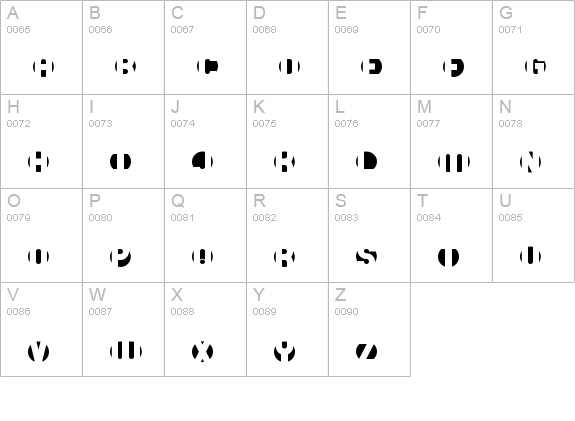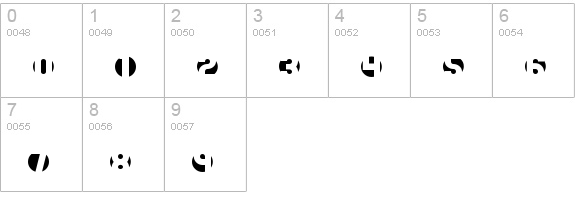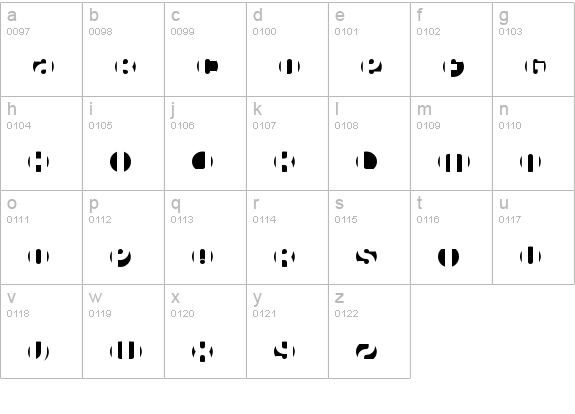
DB Layer 4 BRK Font Details
DB Layer 4 BRK font is a unique and eye-catching display font that adds a touch of modernity to any design project. With its bold and edgy appearance, this font is perfect for making a statement or standing out from the crowd. The intricate layering effect gives it a 3D-like appearance, adding depth and dimension to your text. What's even better is that DB Layer 4 BRK font is available for free download at FontsMarket.com. Whether you're working on a branding project, poster design, or any other creative endeavor, this font will definitely make your work pop. Don't miss out on the opportunity to enhance your designs with this striking font - download it now for free and take your projects to the next level.